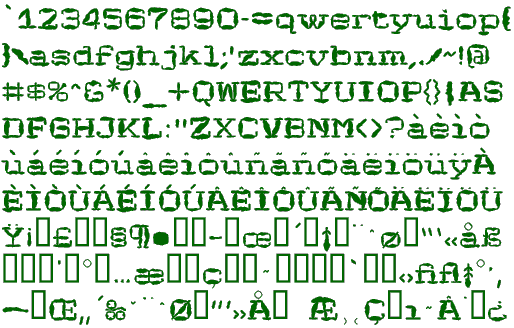
ValManGal
This is a grungy font, which has been a popular style in the 1990s. Hopefully something more appealing will replace the grunge style as we hit the new millenium. It is a variation of ValGal.